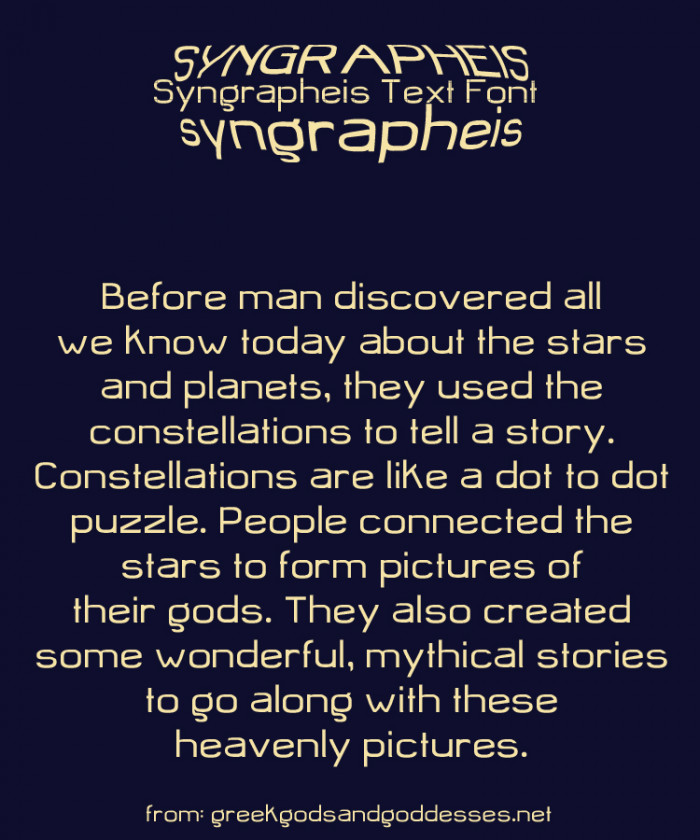
For the moment this is the final version of Syngrapheis, reasonably extended. I'll add basic Greek and basic Cyrillic later because I think that the glyph shapes will look good in those writing systems. I've changed the 'g' since the sampler. I wish to offer this version to Google later so if you see any mistakes, strays or breaks etc please let me know.
lc m = 2 n's connected together...
Your Ü with acute has the acute flipped.
Thank you 77, I've changed that accent. Amazing that I missed this :/ I spent well over 60 minutes checking every glyph on every glyph band for errors, strays, wrongly placed composites, unpleasantly connecting lines.
your Capital A is 32 bricks tall...
@ 77: sorry, but I don't understand what you mean to indicate with your comments about the 'm' and the 'A'. What point are you making? I know how tall the glyphs had to be for visual balance; 'm' is often inspired by 'n'. Where do you see a problem?
Lowercase m: Top-Middle: There is an extra vertical line making it look like 2 Lowercase n's connected together. (Fonts don't normally have an extra vertical line in the middle) If I decided to copy the lowercase n twice to the lowercase m and connected them together, I'd recommend modifying the top of the intersection...
A: Indication of the font's height.
You forgotten the real Superscript 0 (⁰).
I'd like to see a square root symbol...
About the DZ digraphs (With and without the caron): Might need a bit more spacing to match the letter spacing...
Also, For the lowercase ǝ, you just turned the e around... When turning a letter around, make sure to modify the thickness so it matches...
I think that the k would look better if it mirrored x—having the top leg above the x-height looks odd to me.
I love the ogoneks on your Os, which, by the way, do not match the other design. I would change them to the O design.
Concerning the cedillas: you have a comma above g, currently, and if you use cedillas, though commas are the preferred design for those characters, they should all match, i.e., g, k, l, n, and r. And d, which is in Latin Extended Additional.
I agree about the Dz, Lj, and Nj digraphs: they should have the same spacing as if you typed the letters separately. No different than Ij.
A lot of the lowercase versions of the characters in LAtin Extended B, used in First Nation and African languages, are in the IPA Extensions, Phonetic Extensions, and Phonetic Extensions Supplement. If you'd like, I could give you a list of all the necessary charcters?
For uppercase K with hook, I mirror B, D, P, and T, i.e., placing the hook on the top left. I put uppercase Ys hook on the right, just like the lowercase. V and W are on the right as well (Latin Extended C).
The Os and Us with horn: they are part of Vietnamese (the remainder are in Latin Extended Additional) and the horn should be attached about 1/4 of the way down from the top. Most designers incorrectly place them at the top.
Yogh: not a huge deal, but the lowercase usually descends.
Glottal stops: the preferred shape for these characters is similar to a rounded or curved 7.
@77: thank you, I followed your suggestions, square root symbol to come. Regarding m: I had to teach 'printed letter m' by joining nn; sometimes I think this look fits a font, but I changed it here.
@ TCWhite: thank you for your important comment, I appreciate it! I've done O and digraphs; yes please for those further glyphs! Would it be useful to send me details in an email? I'll check your fonts to see cedilla and hook placements.
I worry about corrupting this file! I've once lost a large/complex font and had 2 that crashed instead of opening (I was told it can happen because of their size). Already this one takes a while to open in Fontstructor.
Yes, I'll email a list, as it will take a bit to put together. Granted, there aren't that many more characters that you need to add. File size is definitely a problem. It also depends on the size of the glyphs. As for the cedilla on g, if you keep the cedillas, simply place it above g, but turned, just like the comma.
With a lot of knowledgeable help from TCWhite I've managed to change glyph aspects and add important glyphs. I hope I've got it right. Thank you TCW :)